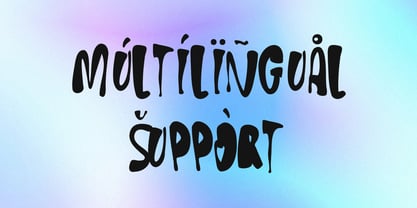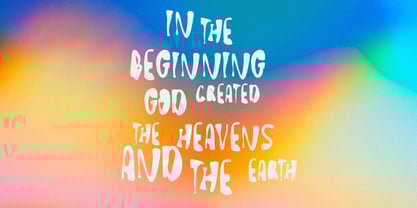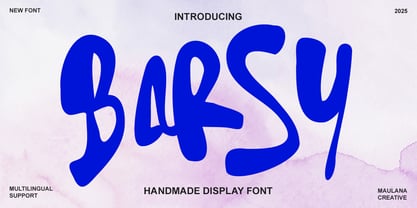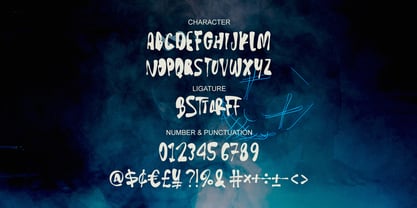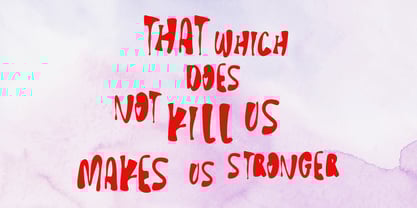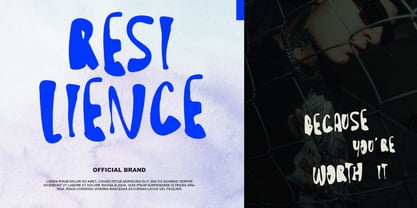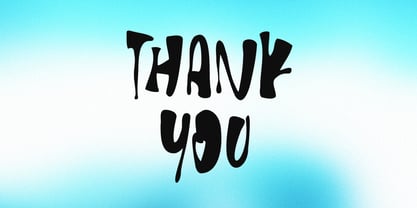
MC Barsy
by Maulana Creative
The MC Barsy Font Family was designed by Gilang Maulana and published by Maulana Creative. MC Barsy contains 1 styles. More about this family
Barsy is a authentic brush handwritten font. With bold stroke, fun character with a bit of ligature and alternate. To give you an extra creative work. Barsy font support multilingual more than 100+ language. This font is good for logo design, Social media, Movie Titles, Books Titles, a short text even a long text letter and good for your secondary text font with sans or serif. Make a stunning work with Barsy font.
Designers: Gilang Maulana
Foundry: Maulana Creative